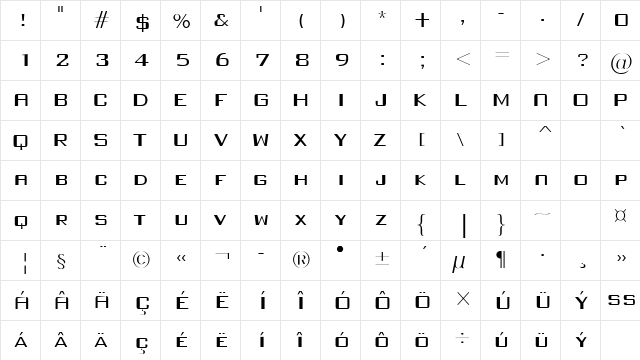
Full Injection regular
| Foundry | Linafis Studio |
| Designer | Linafis Studio |
Full Injection is a composed and adaptable typeface that performs quietly and consistently across a wide range of design contexts.